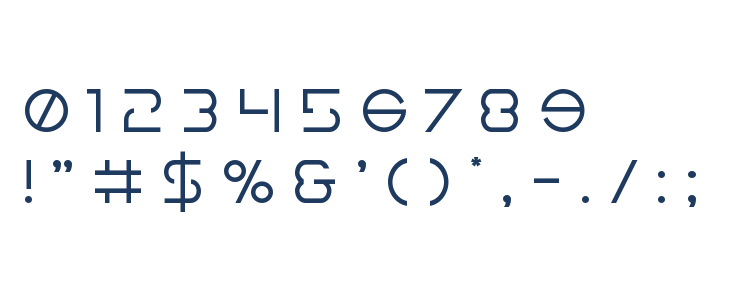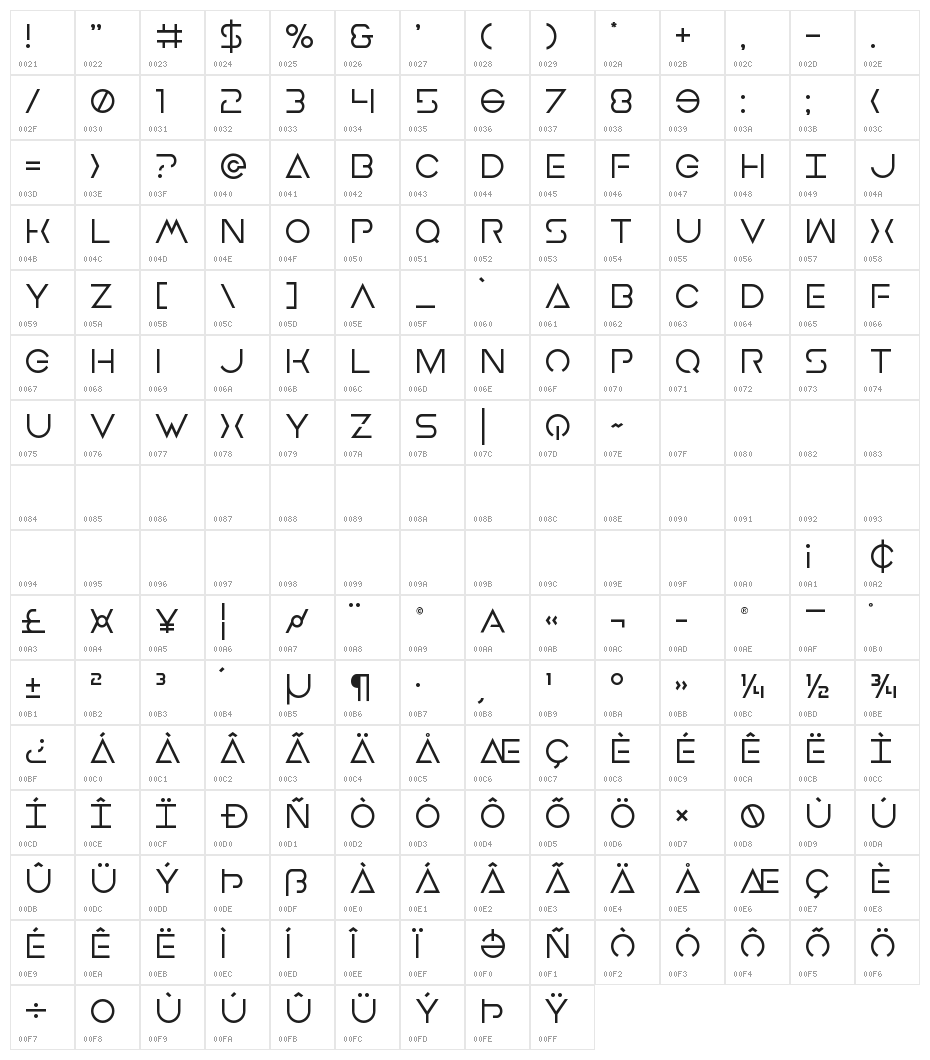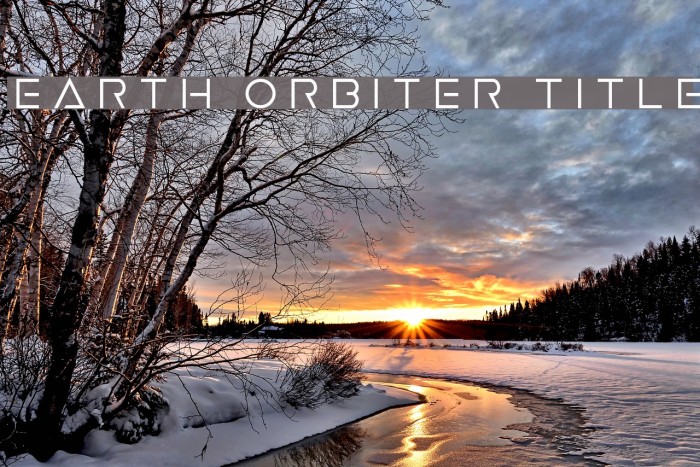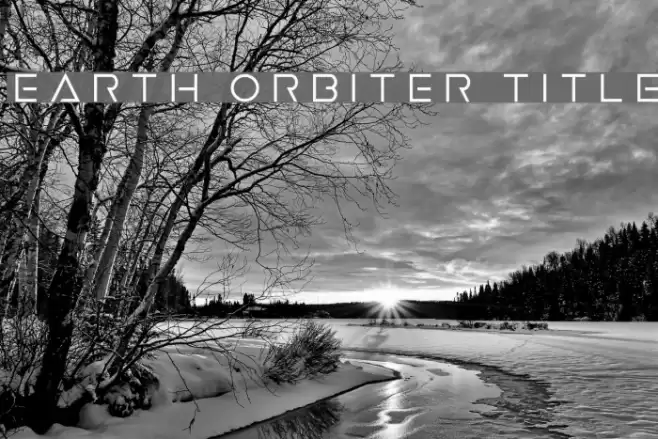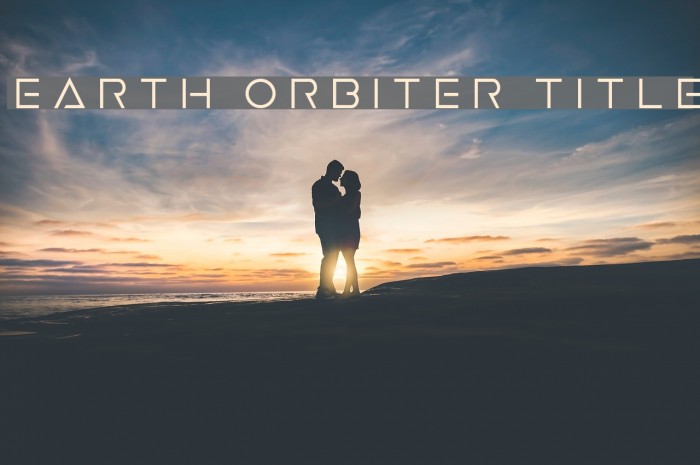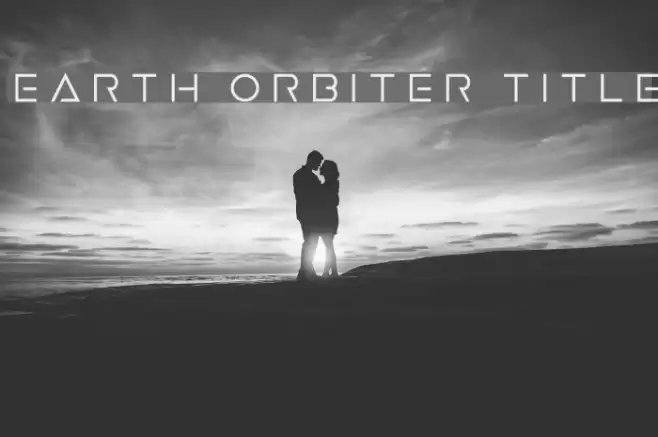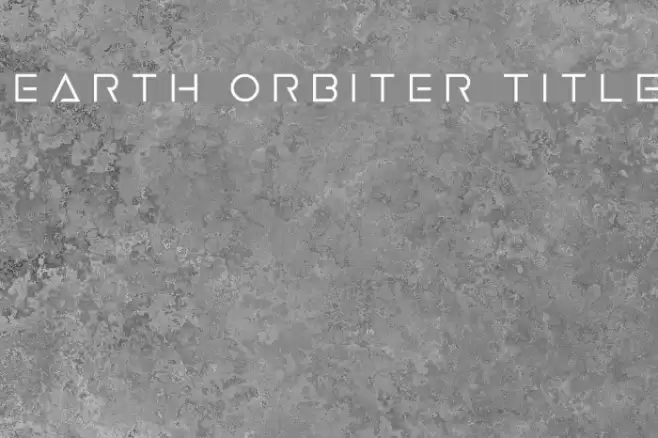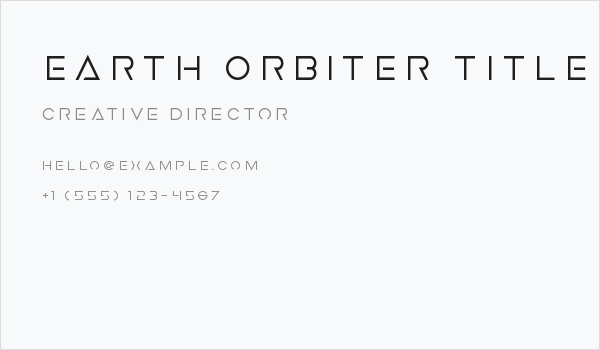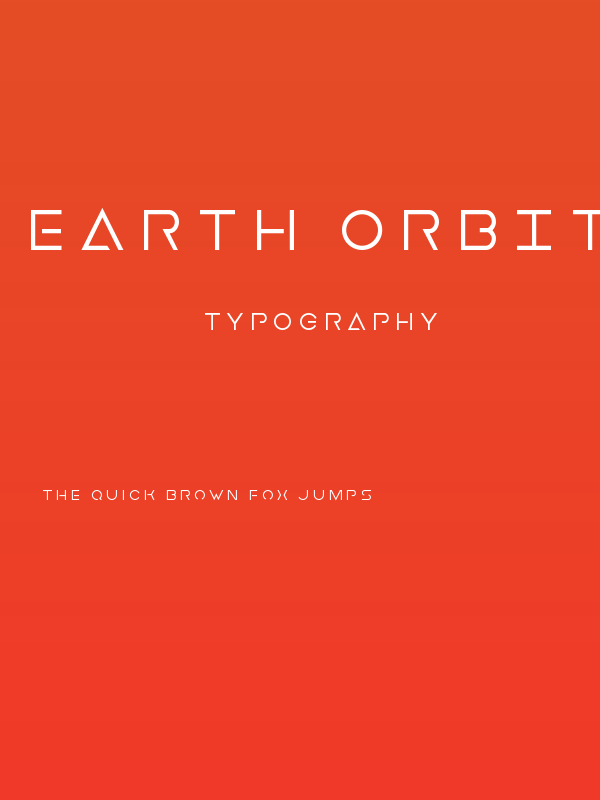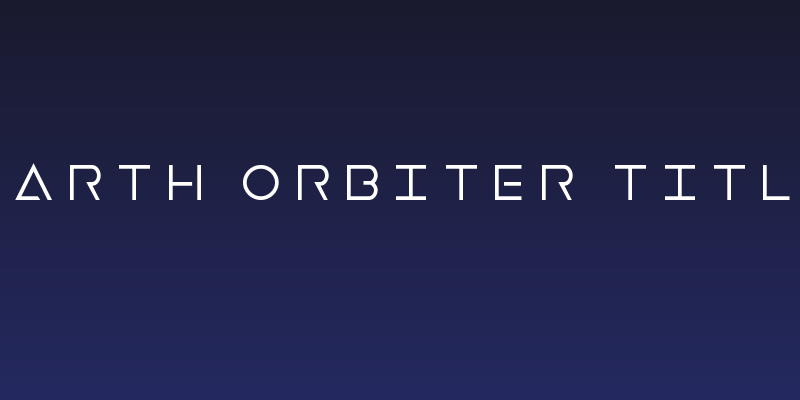
Earth Orbiter Title Font
Earth Orbiter Title Description
This font features a futuristic and geometric design, characterized by clean lines and a modern aesthetic. The uppercase letters are distinct with angular cuts and rounded elements, creating a unique blend of sharpness and softness. The numerals and special characters maintain this geometric style, ensuring consistency across all glyphs. The font's design is minimalistic yet bold, making it suitable for projects that require a contemporary and innovative look. Its distinct style can capture attention while remaining legible, making it versatile for various design needs.
| Proposed Projects | Ideal for technology branding, sci-fi posters, modern advertising, and innovative product packaging. |